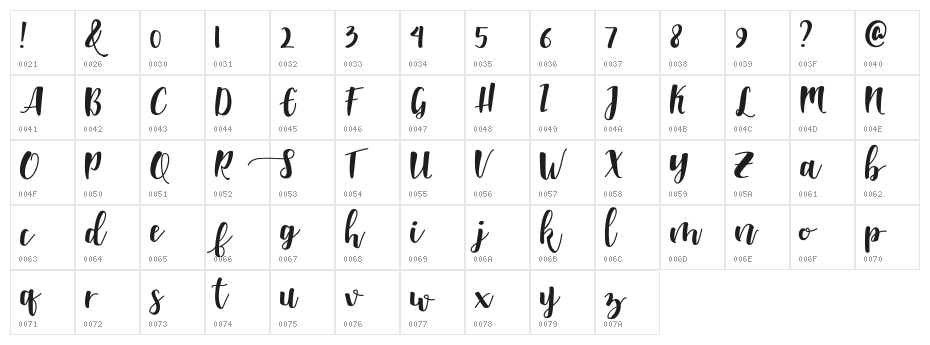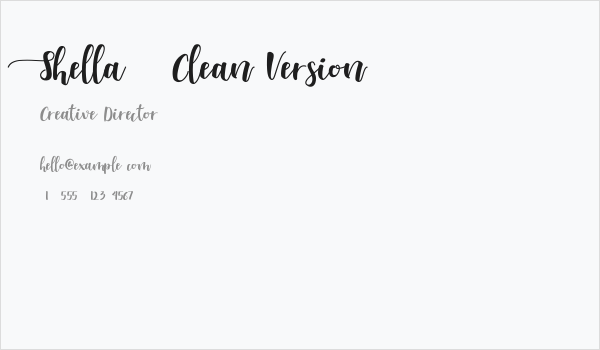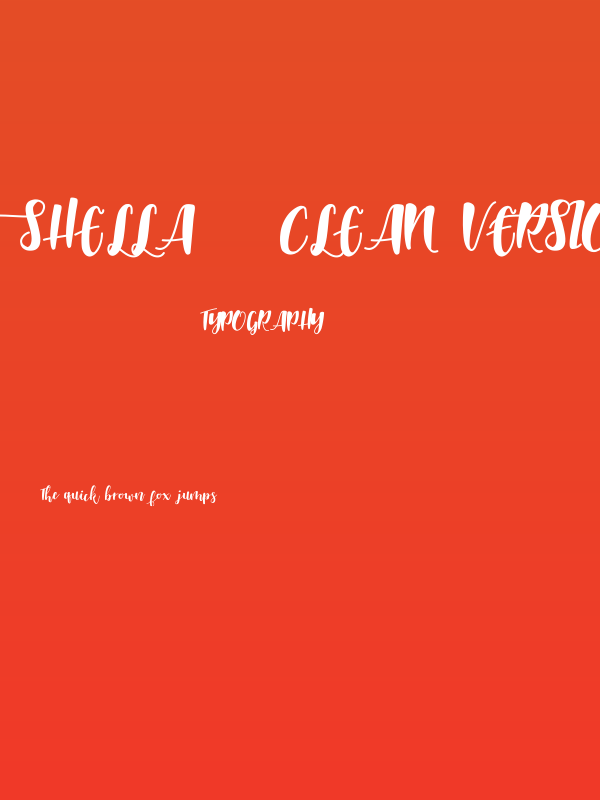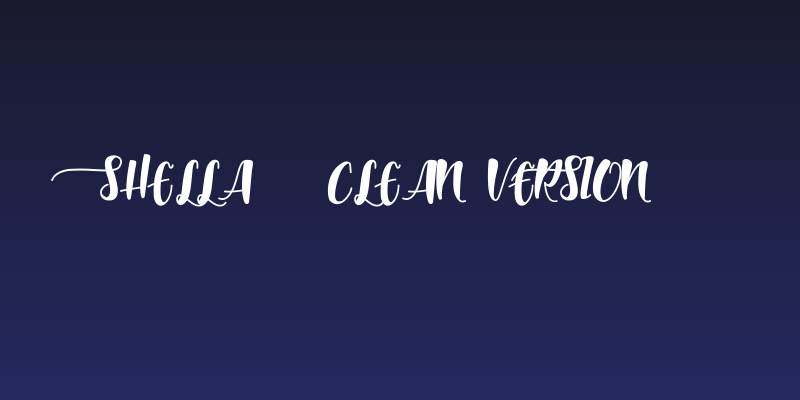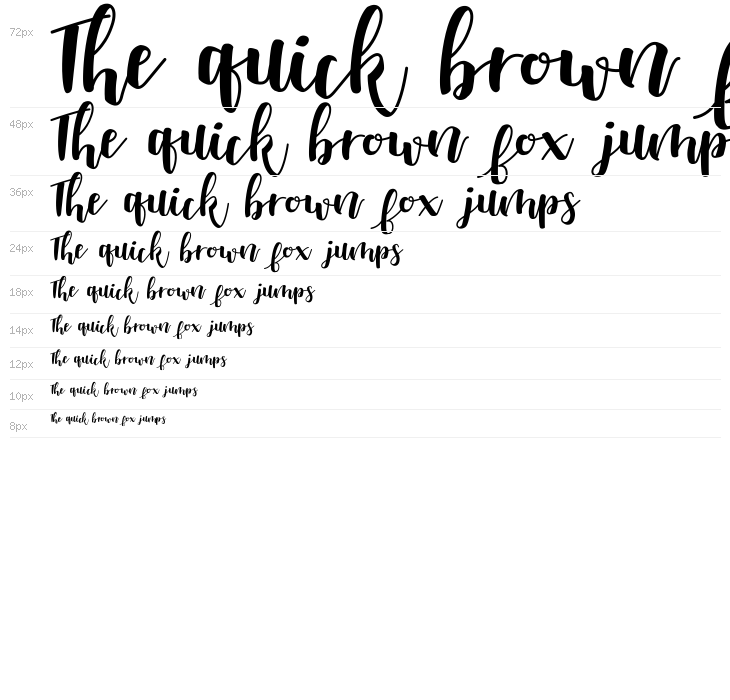
Shella - Clean Version Font
Shella - Clean Version Description
This font features a bold and expressive script style, characterized by its flowing, cursive letterforms. The uppercase letters are particularly striking, with dramatic flourishes and loops that give a sense of movement and elegance. The lowercase letters maintain a consistent style, complementing the uppercase with their own unique flair. The numbers are bold and clear, matching the overall aesthetic. Special characters like the ampersand and exclamation mark are designed with the same attention to detail, adding to the font's cohesive look. This font is ideal for projects that require a personal touch, such as invitations, branding, or any design that benefits from a handwritten feel.
Proposed ProjectsIdeal for invitations, branding, and designs needing a personal, handwritten touch.